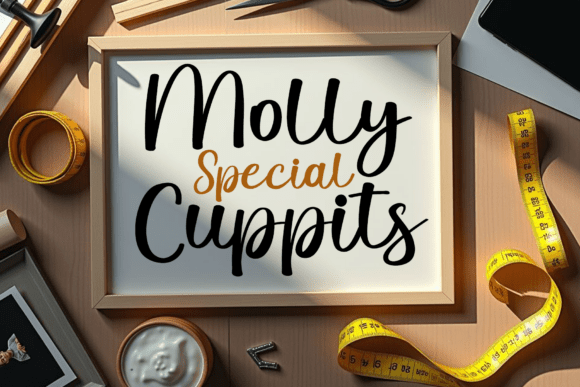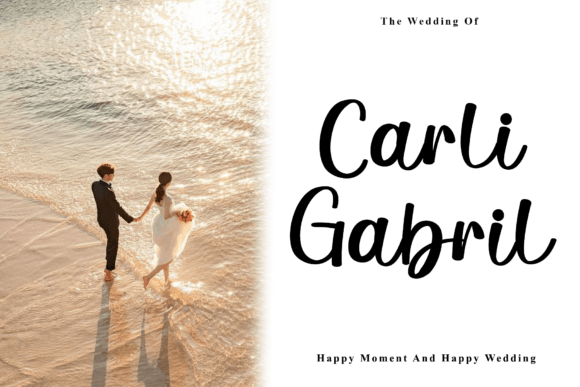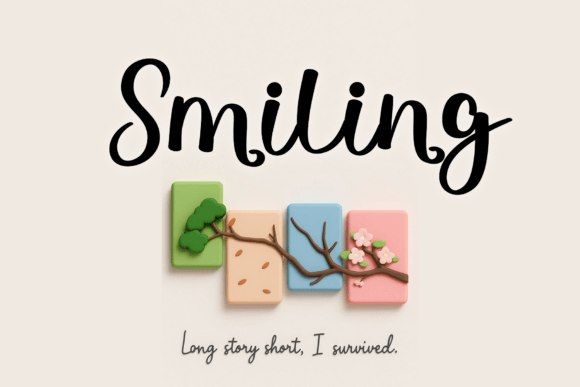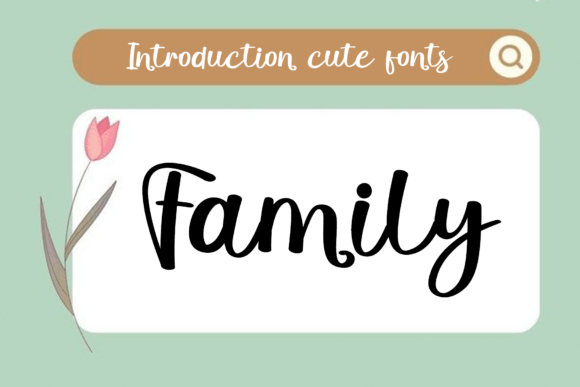
Introducing Bitlights Font: Elevate Your Brand with Sophistication and Rhythm
In the world of typography, few fonts manage to strike a balance between elegance and warmth. Bitlights Font is one such exceptional typeface that seamlessly merges calligraphic sophistication with an organic, artisanal aesthetic. Designed to make your brand stand out, Bitlights is perfect for artisanal food branding, boutique product packaging, upscale lifestyle marketing, and creative editorial titles.
The Unique Charm of Bitlights Font
So, what sets Bitlights apart from other script fonts? The answer lies in its distinctive, sweeping, looping ascenders. These fluid strokes not only add a touch of custom, hand-crafted artistry to your designs but also create a rhythmic flow that captures the eye. This characteristic feature of Bitlights lends a sense of movement and elegance, making it an ideal choice for brands looking to convey a sense of luxury and refinement.
Crafting a Distinct Brand Identity with Bitlights
For designers and crafters, finding the right font is crucial to creating a brand identity that resonates with the target audience. Bitlights offers a unique opportunity to infuse your brand with a sense of sophistication and warmth. Whether you’re working on a boutique product packaging project, an upscale lifestyle marketing campaign, or an editorial piece, Bitlights provides the perfect blend of style and approachability.
Applications of Bitlights Font
- Artisanal Food Branding: Elevate your food brand with a touch of elegance and sophistication. Bitlights Font is perfect for creating labels, menus, and marketing materials that convey a sense of high-quality, artisanal products.
- Boutique Product Packaging: Stand out in the market with packaging that exudes luxury and refinement. Bitlights adds a touch of bespoke charm to your product packaging, making it perfect for boutique brands.
- Upscale Lifestyle Marketing: Communicate luxury and exclusivity with Bitlights Font. Its sophisticated and rhythmic style is ideal for marketing materials aimed at high-end audiences.
- Creative Editorial Titles: Add a touch of elegance to your editorial content with Bitlights. Its unique looping ascenders make it perfect for titles, headings, and any prominent text that needs to capture attention.
Why Choose Bitlights Font?
With so many fonts available, why should Bitlights be your go-to choice? Here are a few compelling reasons:
- Unique Style: Bitlights offers a distinctive style that sets it apart from more common script fonts. Its looping ascenders add a dynamic, artistic touch to any design.
- Versatility: While Bitlights excels in luxury and artisanal contexts, its warm and approachable aesthetic ensures it can adapt to various design needs.
- Ease of Use: Despite its sophisticated appearance, Bitlights Font is easy to read and use in various design applications, making it a practical choice for designers.
Tips for Using Bitlights Font Effectively
To maximize the impact of Bitlights Font in your designs, consider the following tips:
- Pair with Complementary Fonts: Bitlights pairs well with clean, sans-serif fonts for body text. This contrast ensures readability while maintaining a sophisticated look.
- Experiment with Colors: While Bitlights looks stunning in traditional black and white, don’t be afraid to experiment with colors that match your brand’s aesthetic.
- Pay Attention to Spacing: The looping ascenders of Bitlights can sometimes overlap. Adjusting the spacing between letters can enhance readability and visual appeal.
Bitlights Font is more than just a typeface; it’s a design statement. With its unique blend of calligraphic elegance and organic warmth, it offers designers and crafters a powerful tool to elevate their brand identities. Whether you’re aiming for artisanal food branding, boutique product packaging, upscale lifestyle marketing, or creative editorial titles, Bitlights provides the sophistication and rhythm to make your designs stand out.
Discover the potential of Bitlights Font in your next design project and experience how this sophisticated and rhythmic script font can transform your brand’s visual identity.